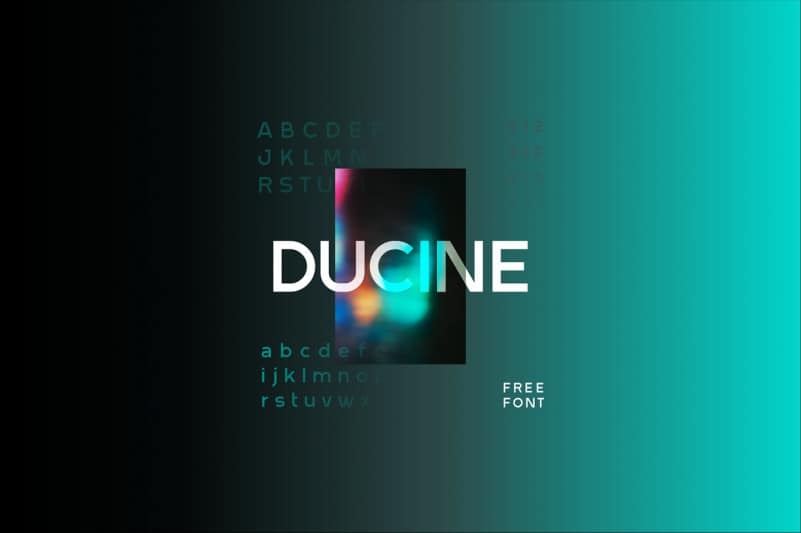
DUCINE Sans Serif Font
DUCINE Sans Serif Font is a distinctive modern sans serif font. You can use Sans serif font feature in many areas easily.
You can create your text with regular characters, and highlight bold characters and titles. You can enrich the titles with the ”DUCINE” character included in the standard font family.
This font offers a wide variety of styles to help you discover the best mood for your projects, from body text to large titles, from classic styles to modern and bold styles.
It is very suitable for books and magazines, magazine covers, editorials, headlines, websites, logos, invitations, branding, advertising and more.